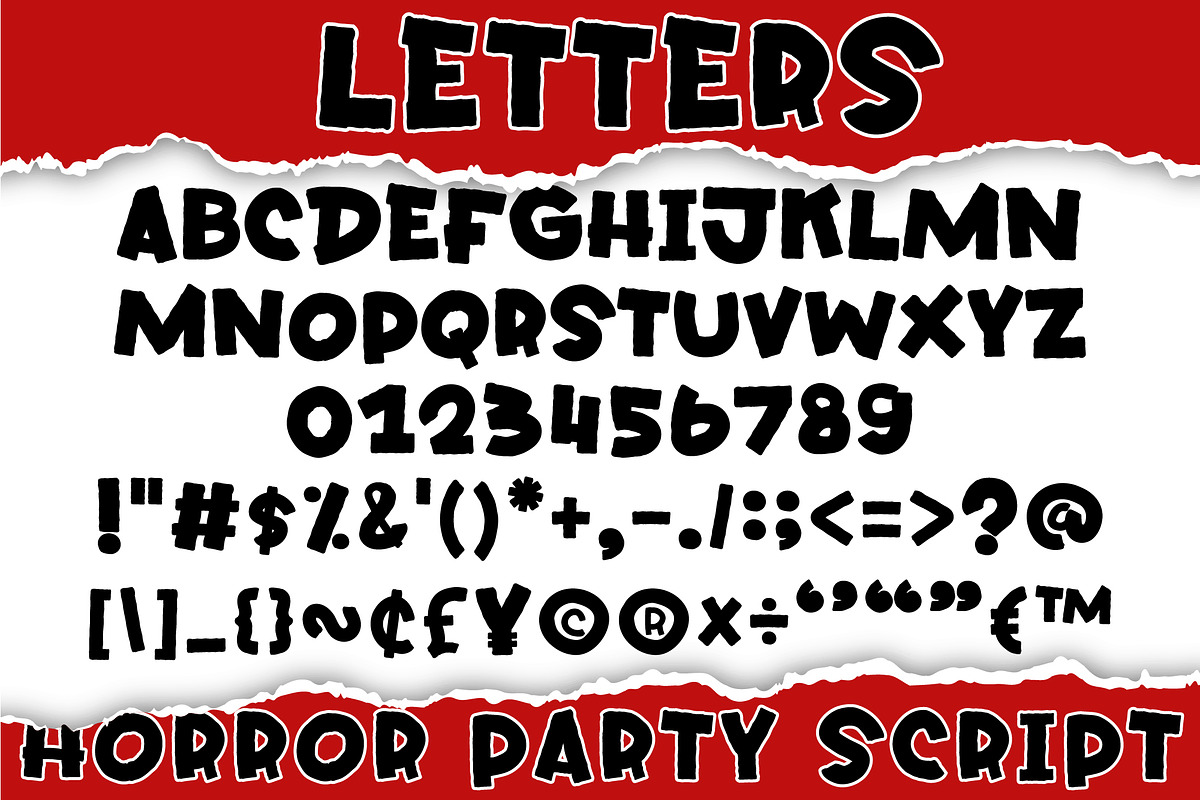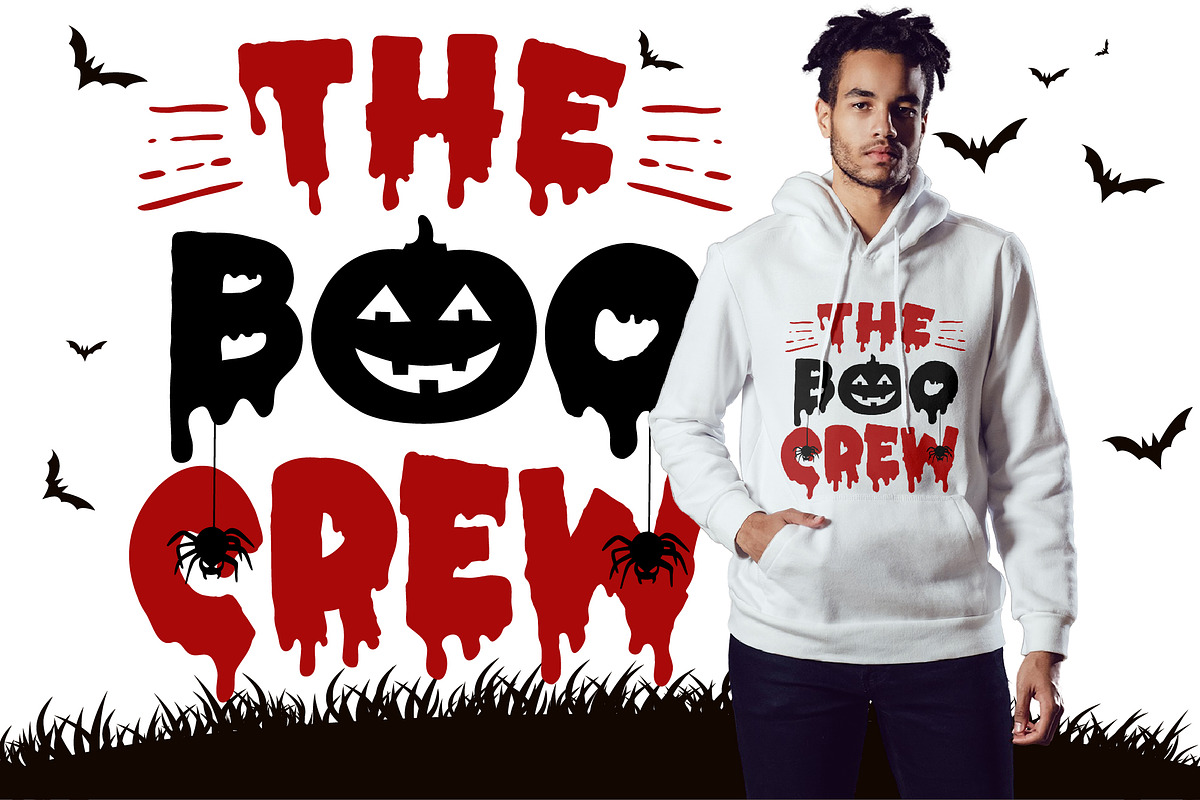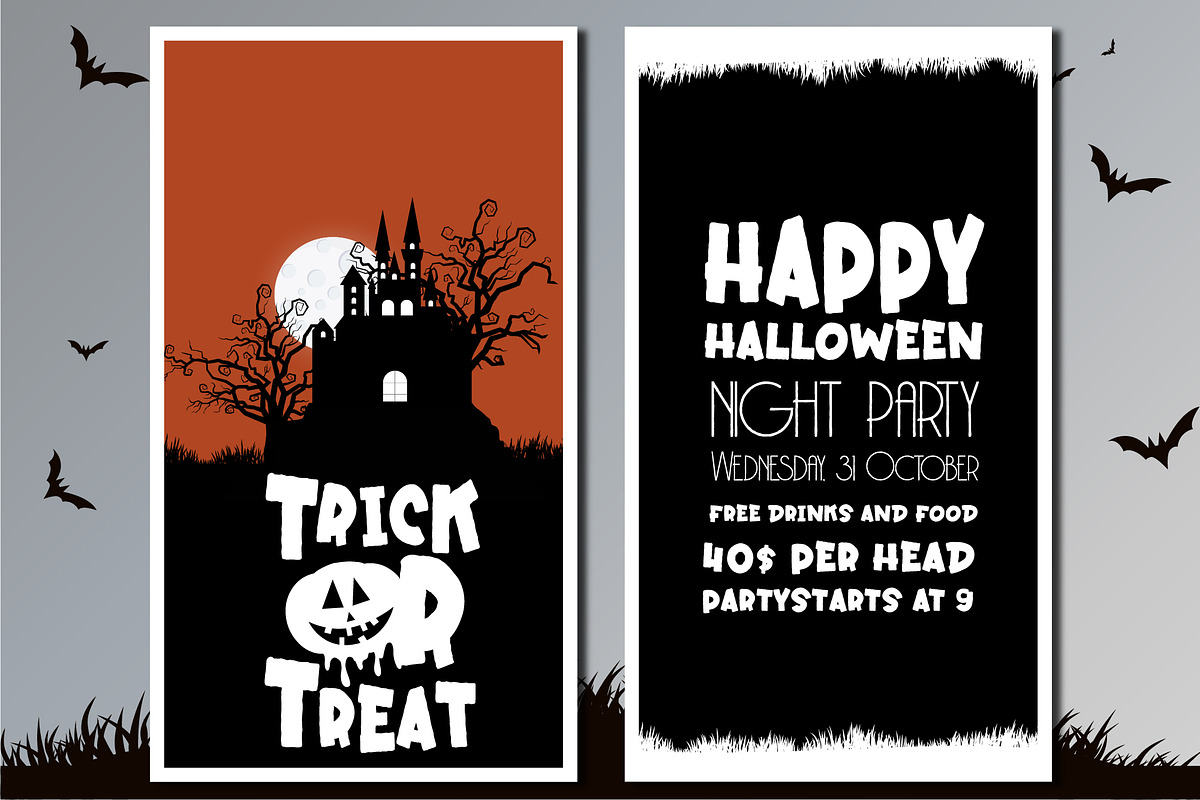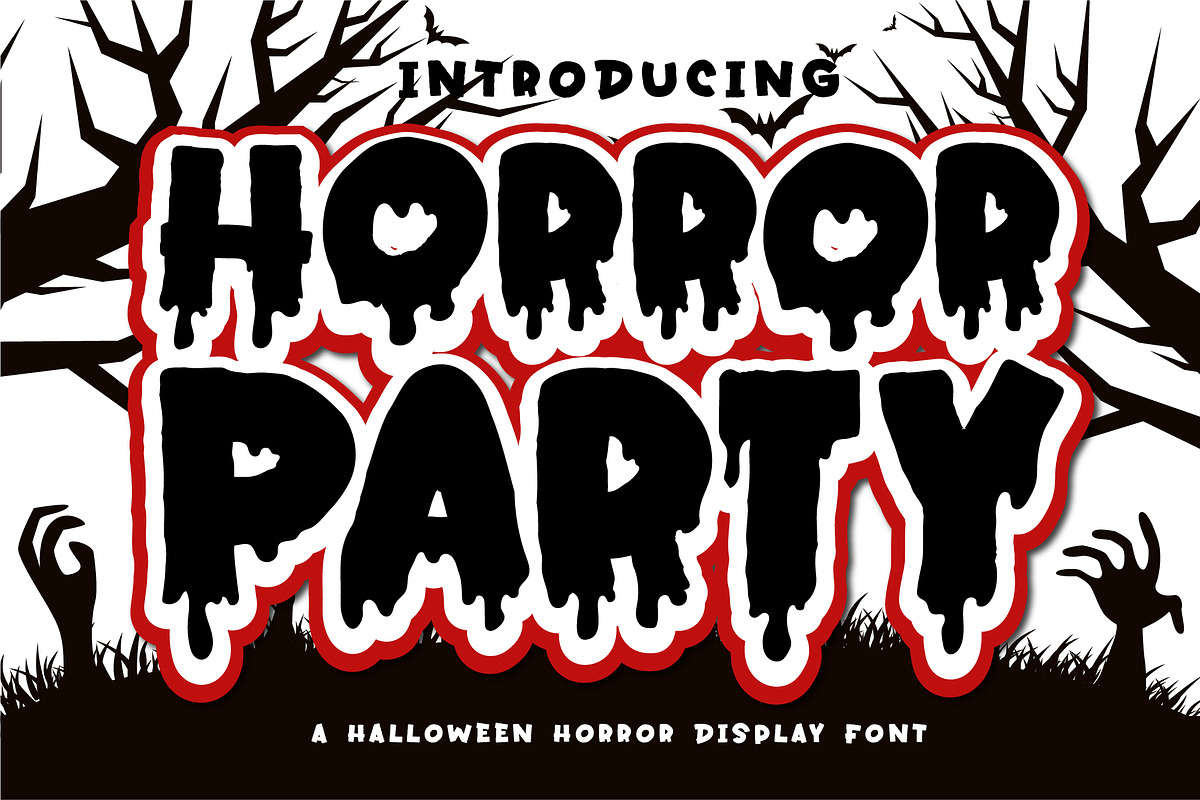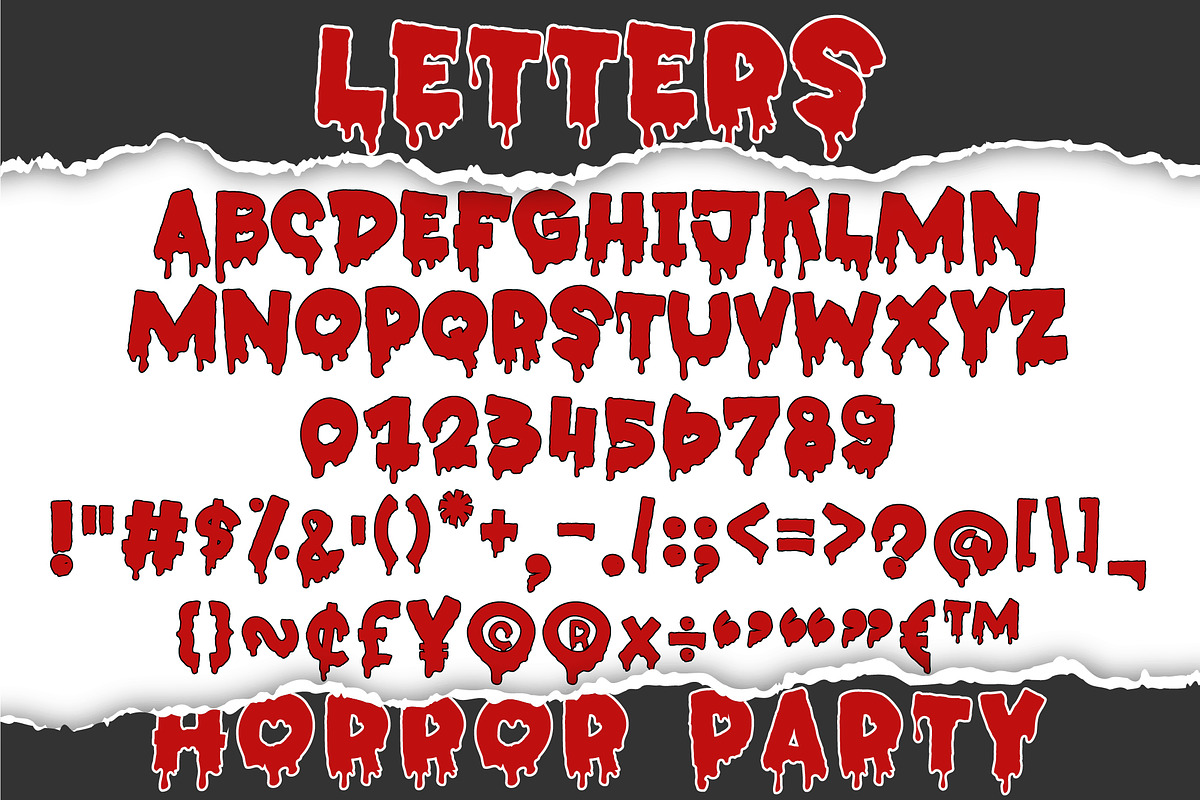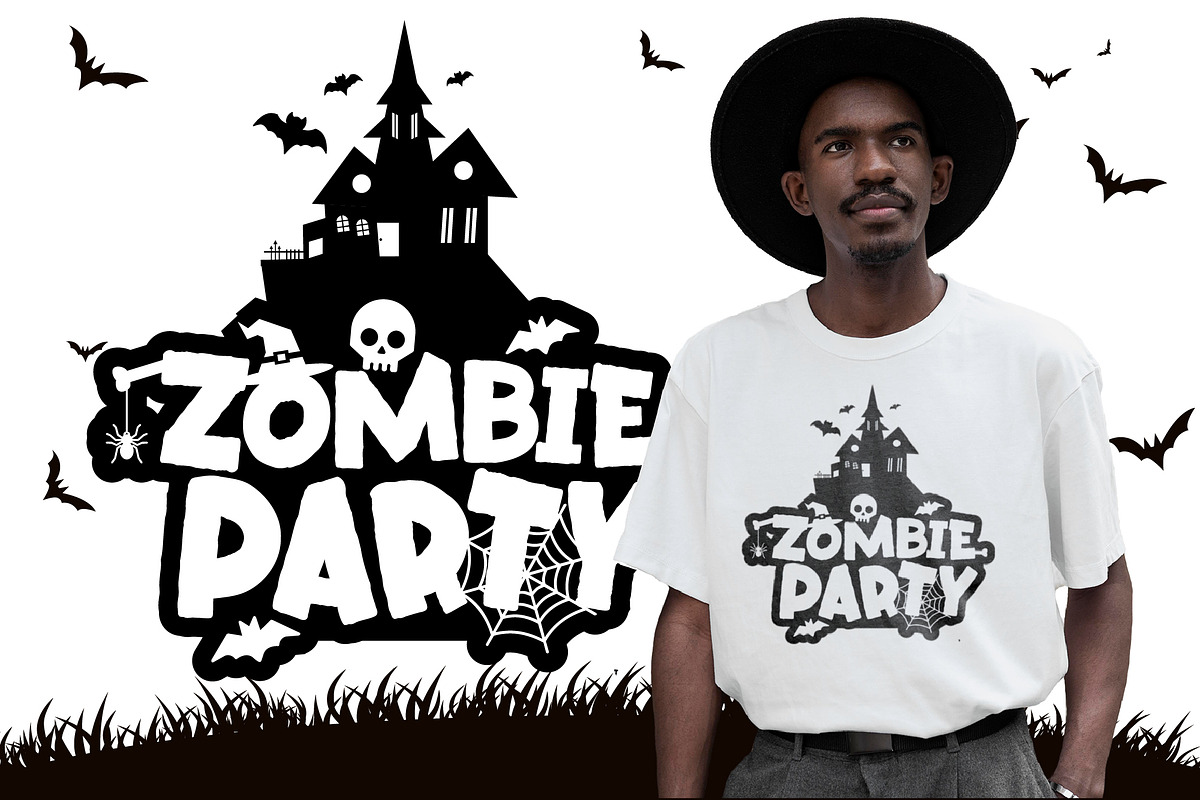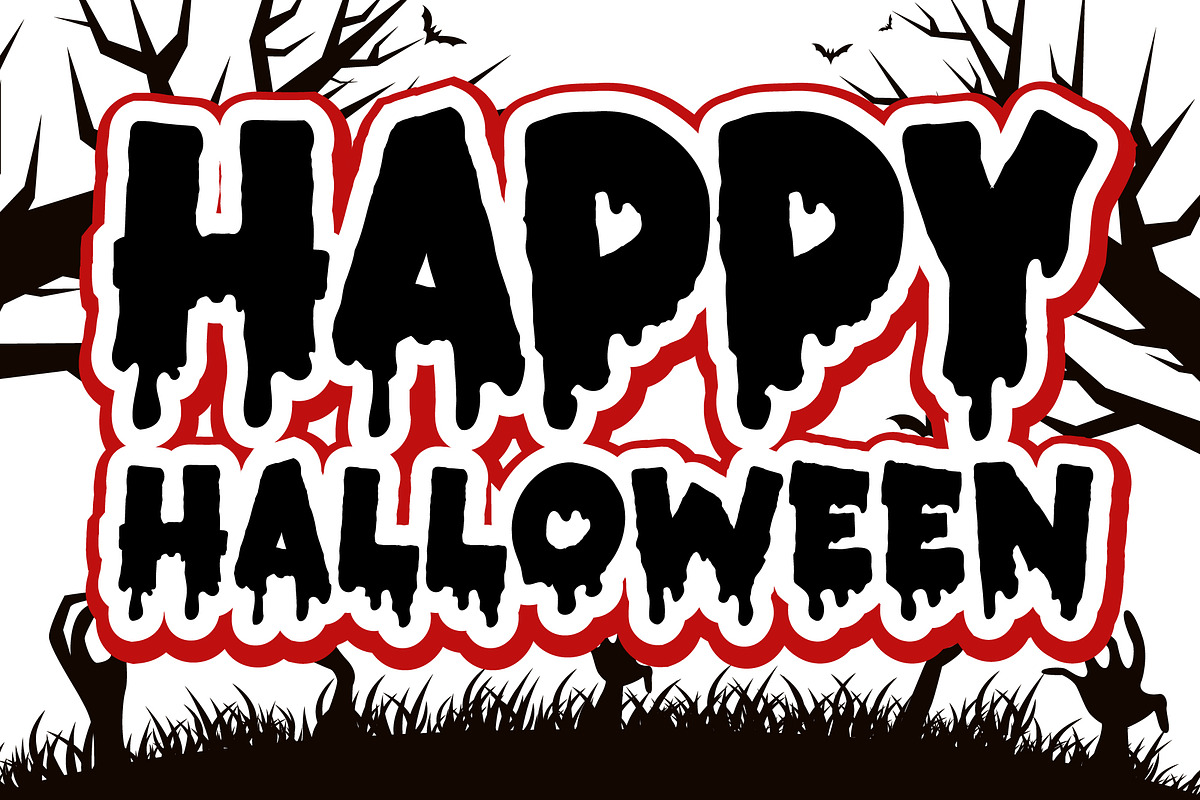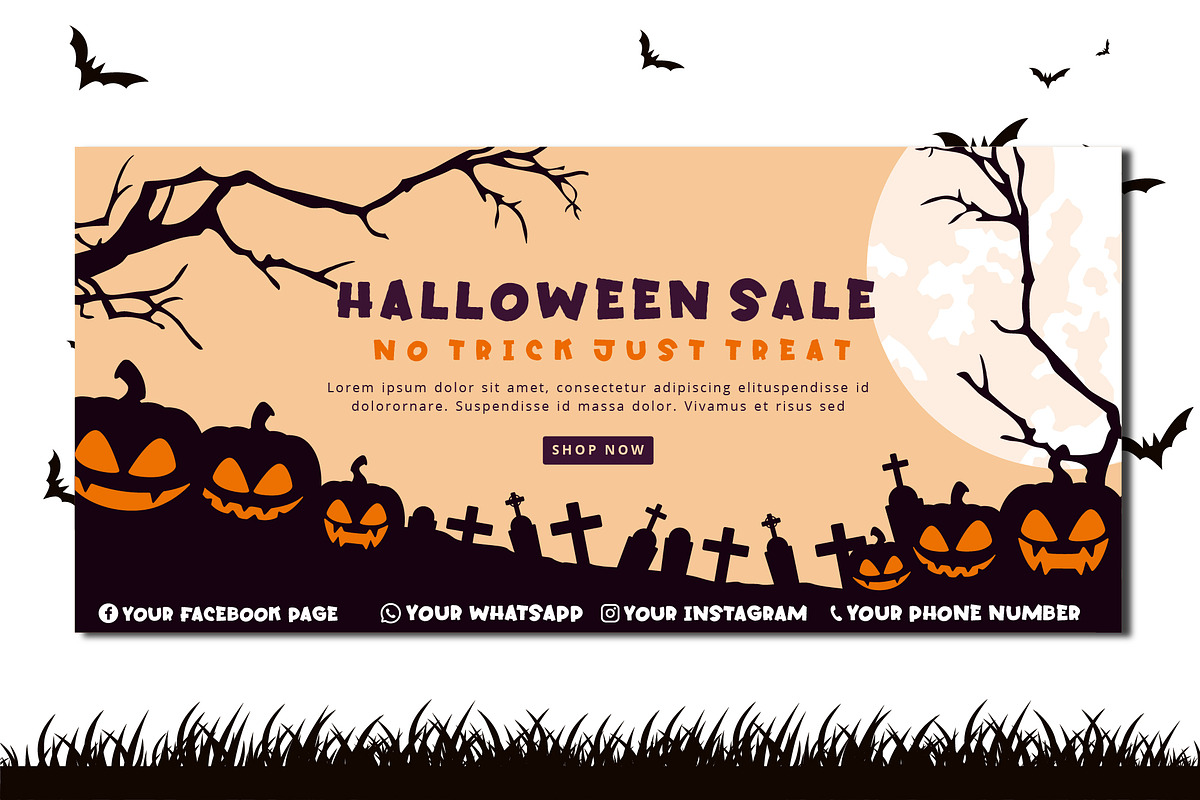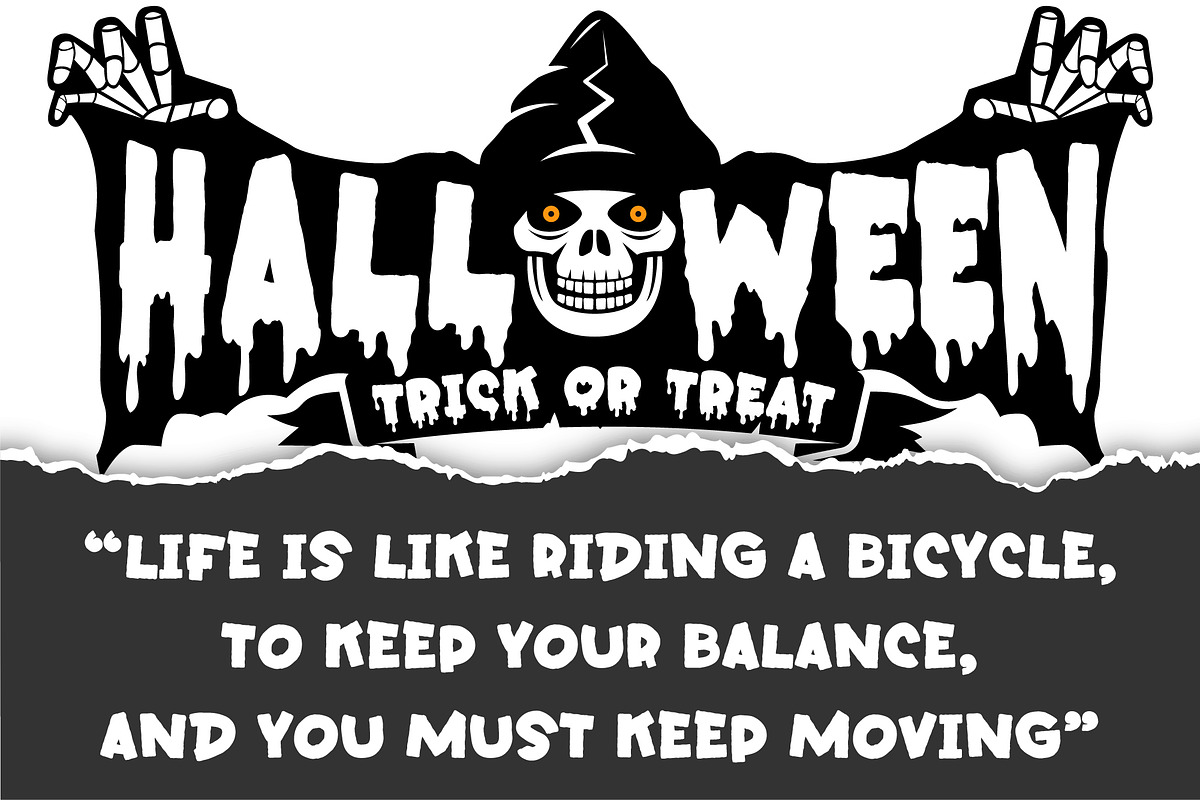
Horror Party Font
Horror Party is a spine-chilling Halloween display font designed to send shivers down your spine. With a ghoulish twist on traditional lettering, this font adds a touch of eerie enchantment to your designs. Perfect for t-shirt designs, party invitations, and all things spooky, “Horror Party” brings the thrill of the macabre to your creative projects. Unleash your dark side and let this font make a haunting impression!